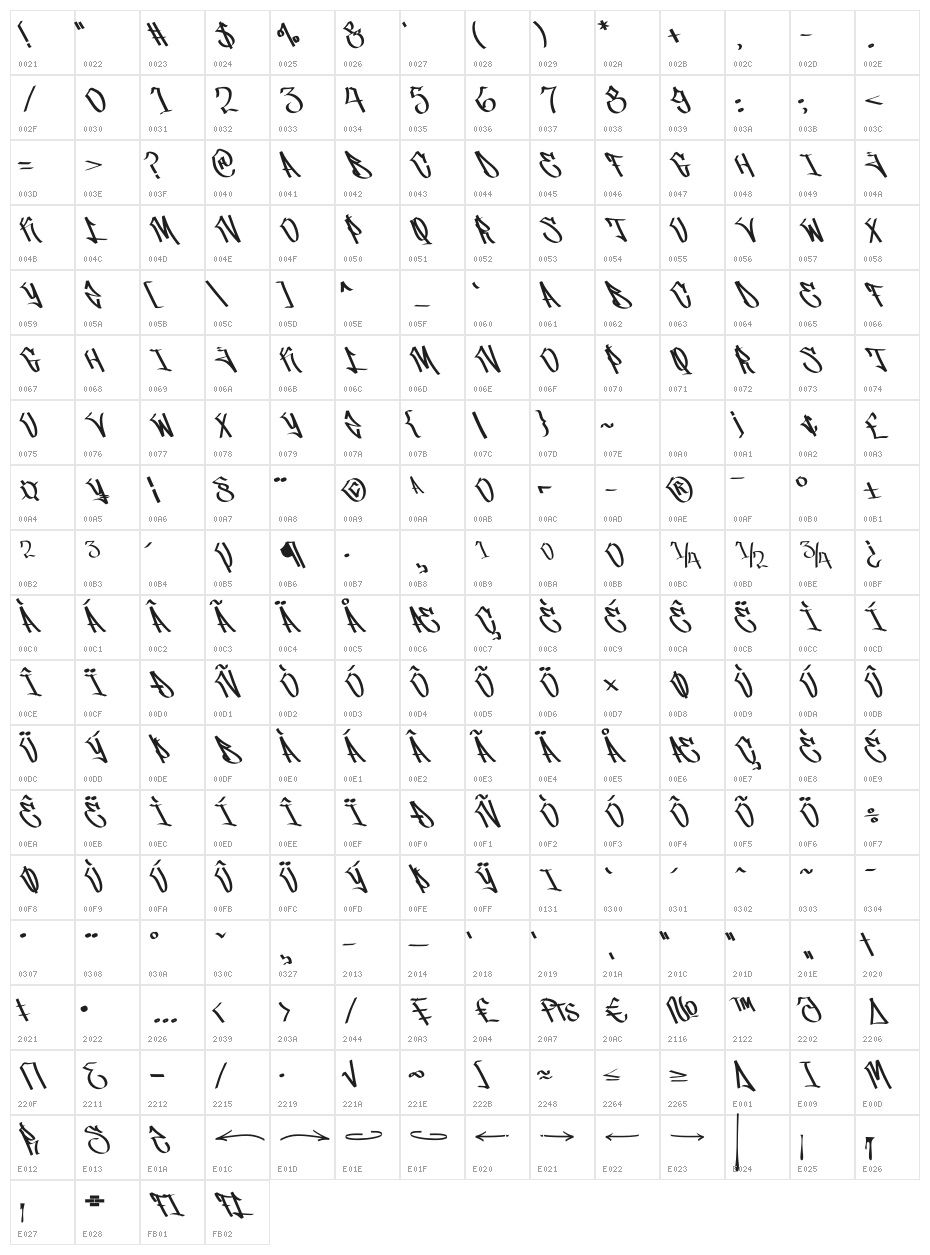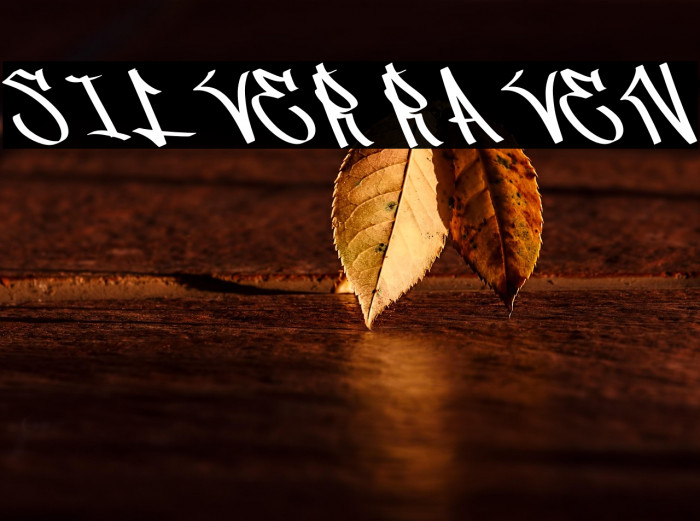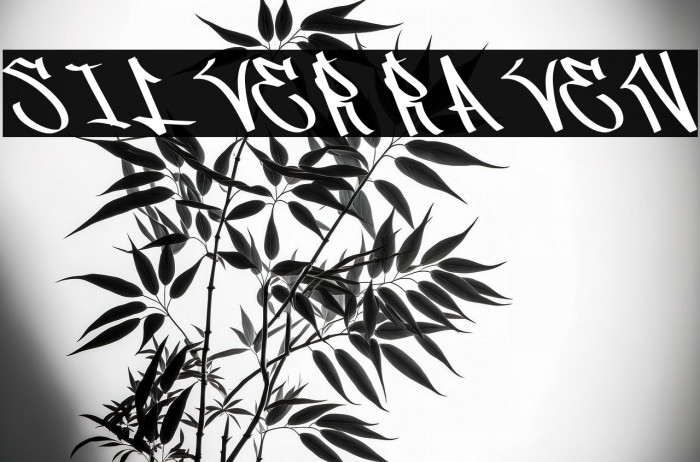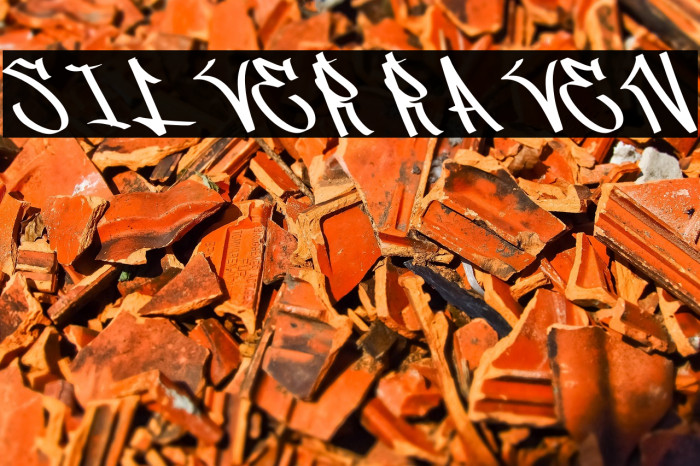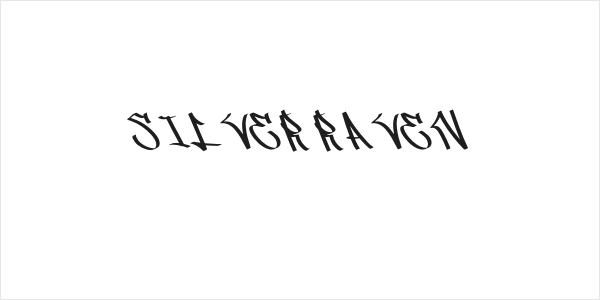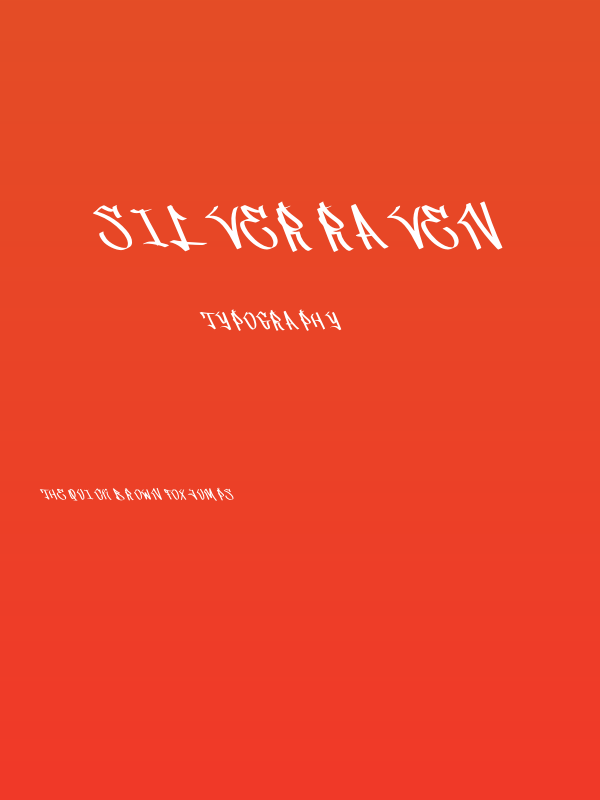
Silver Raven Font
Silver Raven Description
This font features a bold and edgy design with sharp, angular lines that give it a dynamic and rebellious feel. The letters are slightly slanted, adding a sense of movement and energy. The strokes are thick and consistent, providing a strong visual impact. The unique style combines elements of graffiti and modern typography, making it stand out with its distinctive character shapes. The numbers and special characters maintain the same boldness and angularity, ensuring a cohesive look across all glyphs.
| Use Case | Logos, Headlines |
| Proposed Projects | Ideal for streetwear branding, music album covers, skateboarding merchandise, and edgy poster designs. |